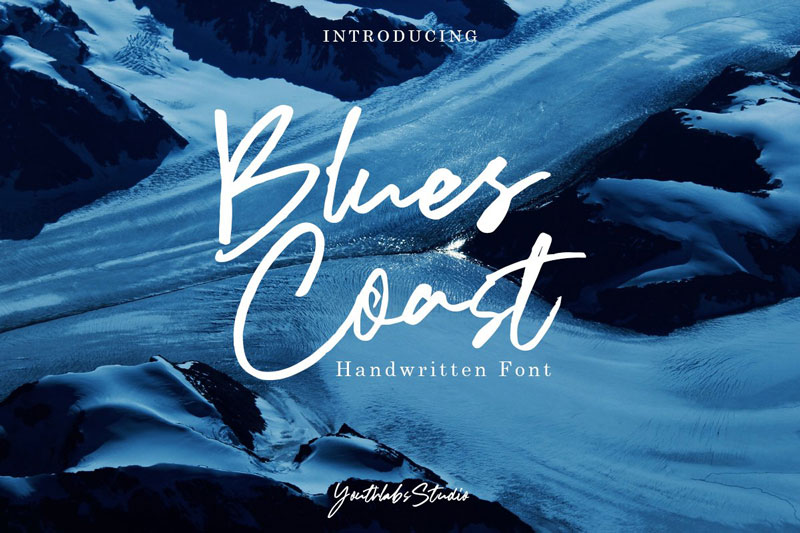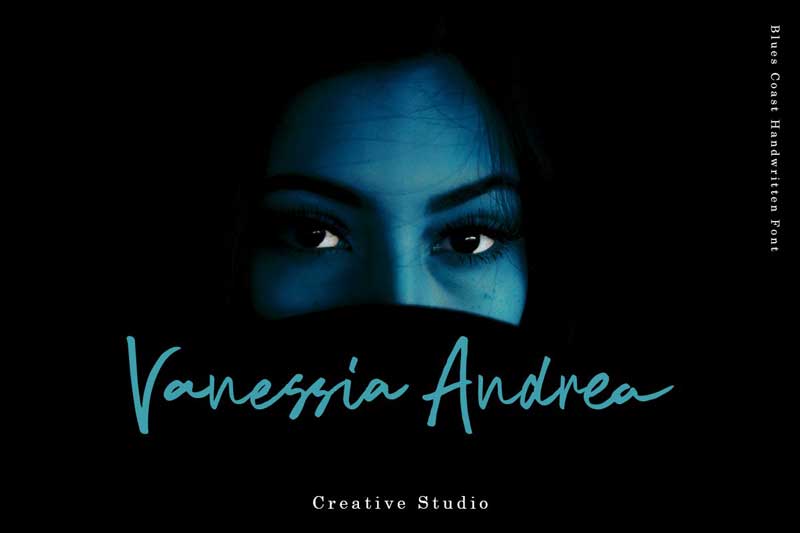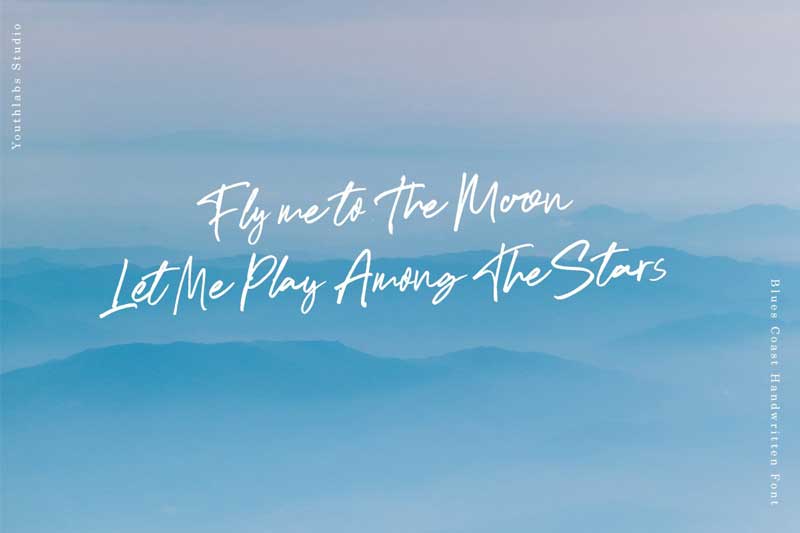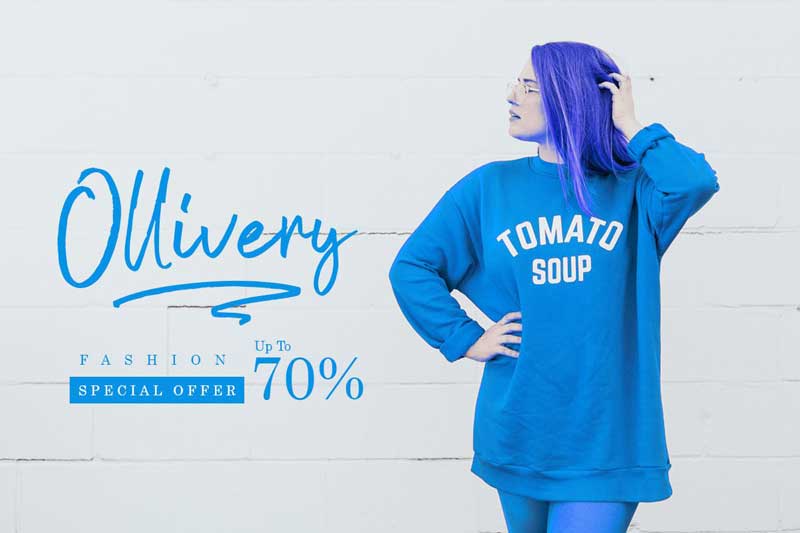
Blues Coast Font Family
Introducing the Creativefabrica Blues Coast Font Family. Blues Coast is a friendly and modern script font with a unique appeal. It will add a stylish touch to any crafting project. You can use this font for every kind of projects such as logo, business cards, wedding and many more. Also, check out this Gabrielly Display Font